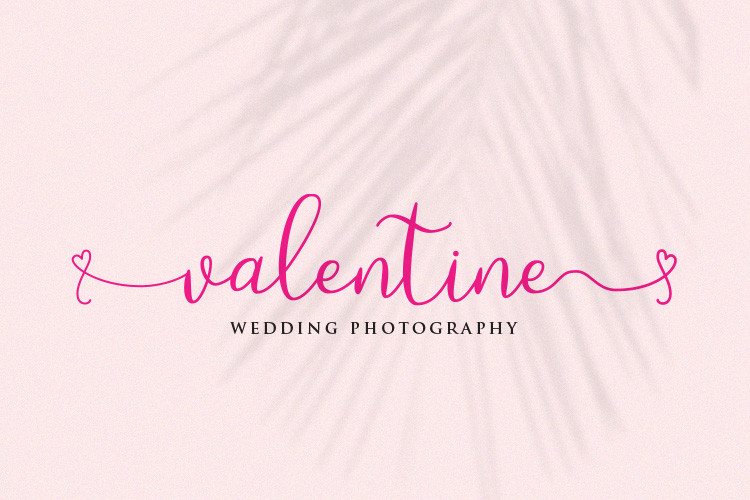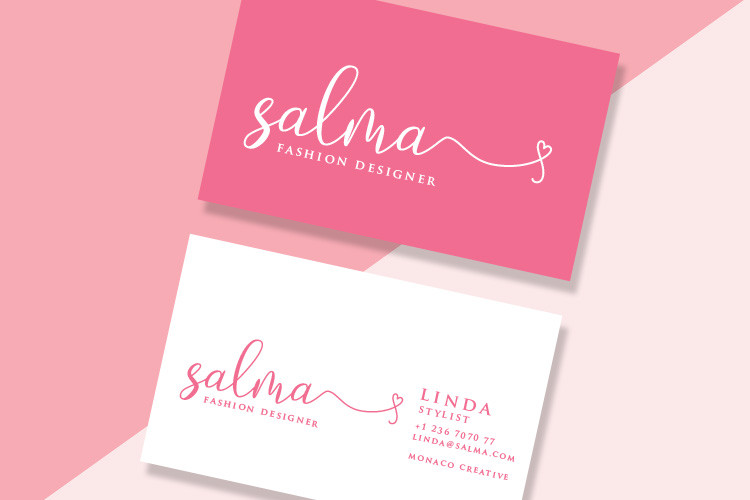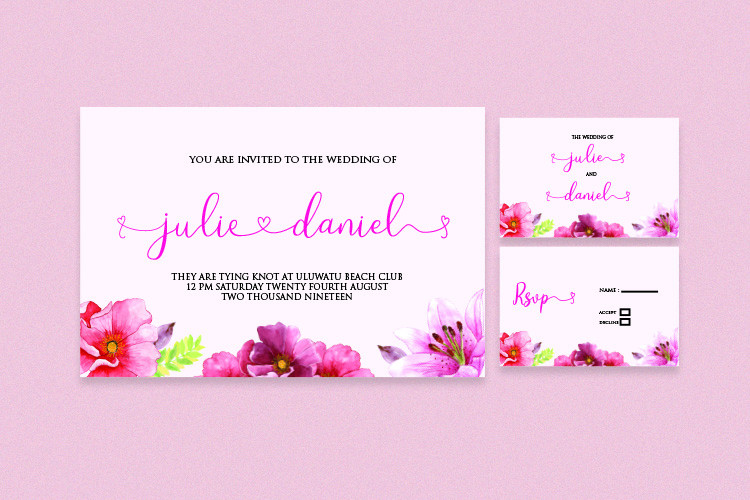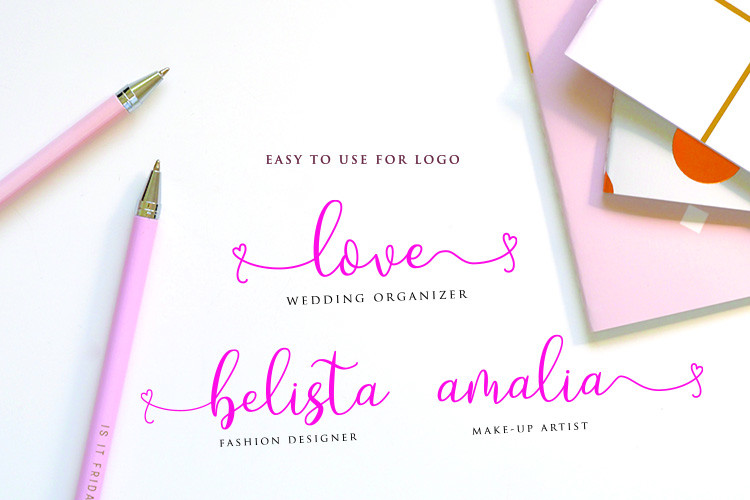
Loveyou – Romantic Font
Loveyou Romantic Font is a modern calligraphy font, It is perfect for branding,logo, wedding invites, every other design which needs a handwritten romantic touch.